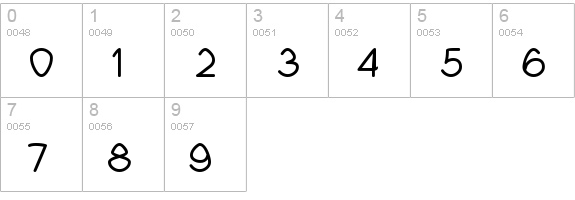
YahoschMedium Font Details
YahoschMedium font is a modern and stylish typeface that exudes elegance and sophistication. With its clean lines and balanced proportions, this font is perfect for a wide range of design projects, from branding to editorial design. The medium weight of YahoschMedium strikes the perfect balance between readability and impact, making it versatile for both display and body text. The best part? YahoschMedium is available for free download at FontsMarket.com. This means you can elevate your design projects with this sleek and professional font without breaking the bank. Whether you're working on a logo, website, or print materials, YahoschMedium is a go-to choice for designers looking for a high-quality font that won't cost a dime. Download YahoschMedium today and give your designs a touch of sophistication and style.